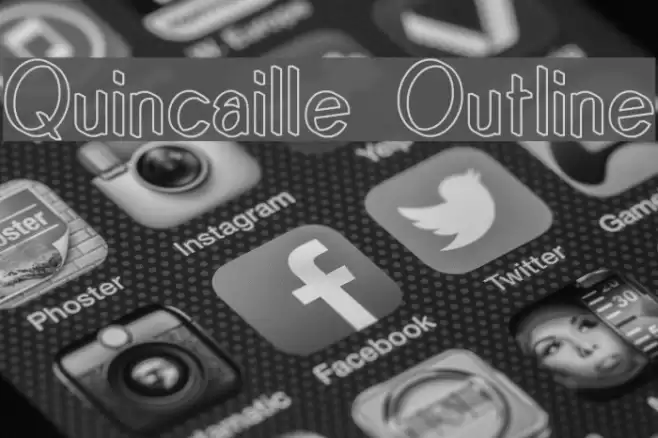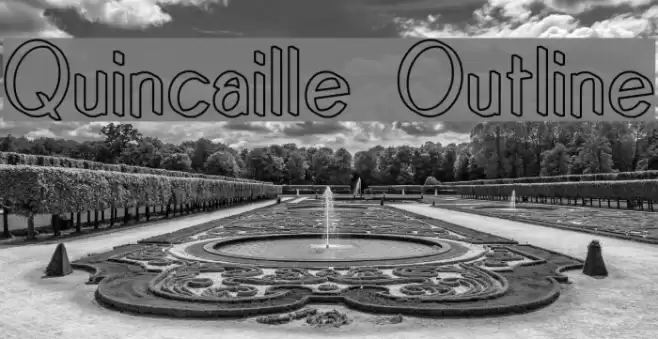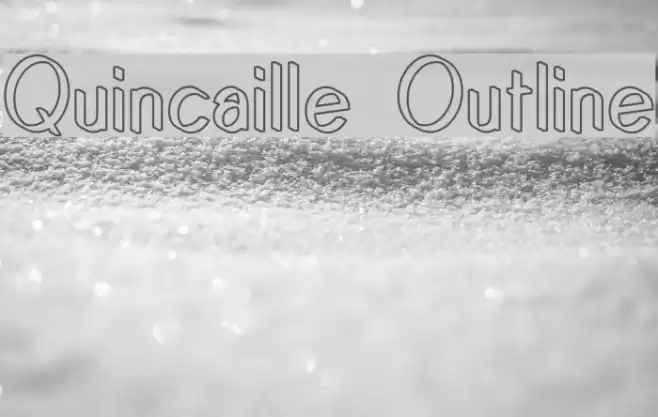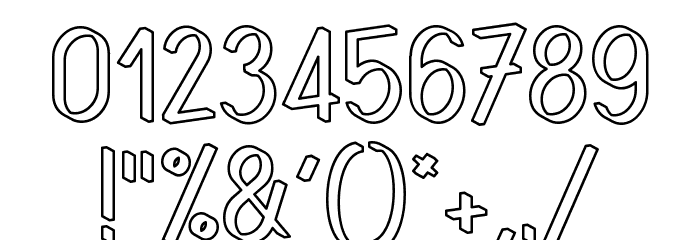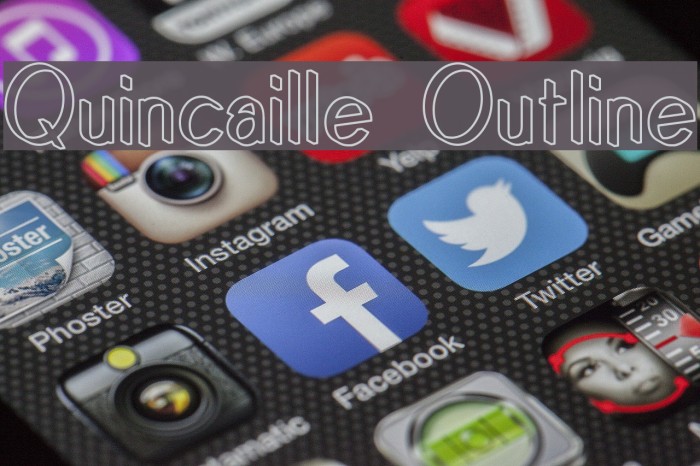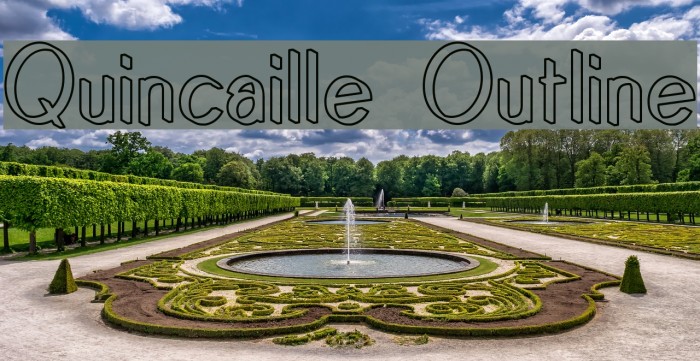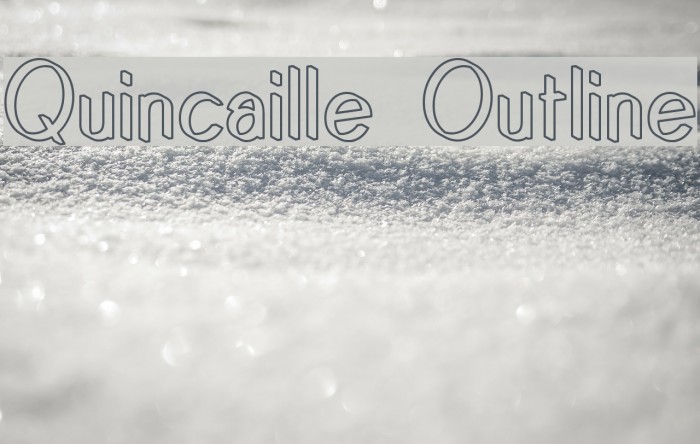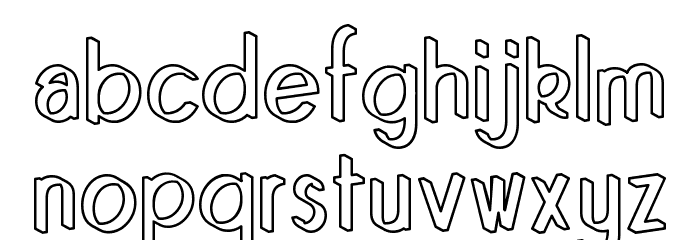
Quincaille Outline Font
Quincaille Outline Description
This font features an outline style with clean, geometric shapes that give it a modern and playful appearance. The uppercase and lowercase letters maintain consistent proportions, creating a harmonious look. The characters are well-defined with a uniform stroke width, enhancing readability while maintaining a unique aesthetic. The numerals and special characters follow the same design principles, ensuring a cohesive appearance across all elements. This font's outline style makes it suitable for creative and eye-catching designs.
A modern, geometric outline font with consistent proportions and playful style from Uncategorized fonts.
- Proposed Projects: Ideal for posters, logos, headlines, and any design project that requires a bold and creative touch.